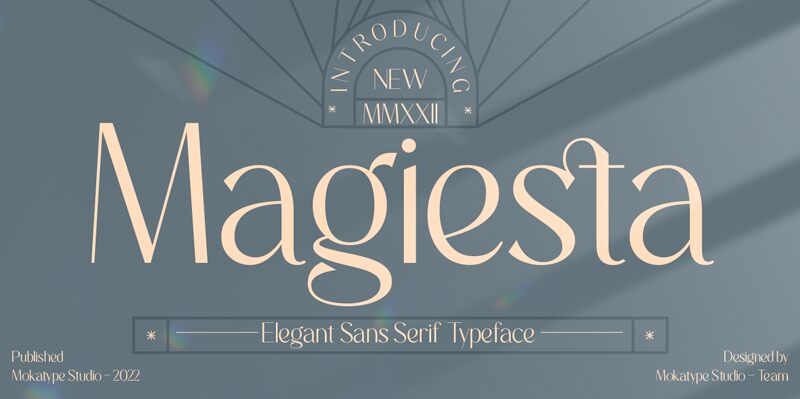
Magiesta by Moka Type Studio is a captivating sans serif font that blends elegance with modernity. Its sleek lines and graceful curves create an inviting visual appeal, perfect for making a sophisticated statement. The font exhibits striking contrasts in character width, lending an expressive and dynamic feel to any text.
Magiesta is ideal for branding projects, editorial designs, and high-end product packaging where a touch of refinement is essential. Its unique aesthetic can elevate logos, headlines, and advertising materials, ensuring they stand out with class and style.